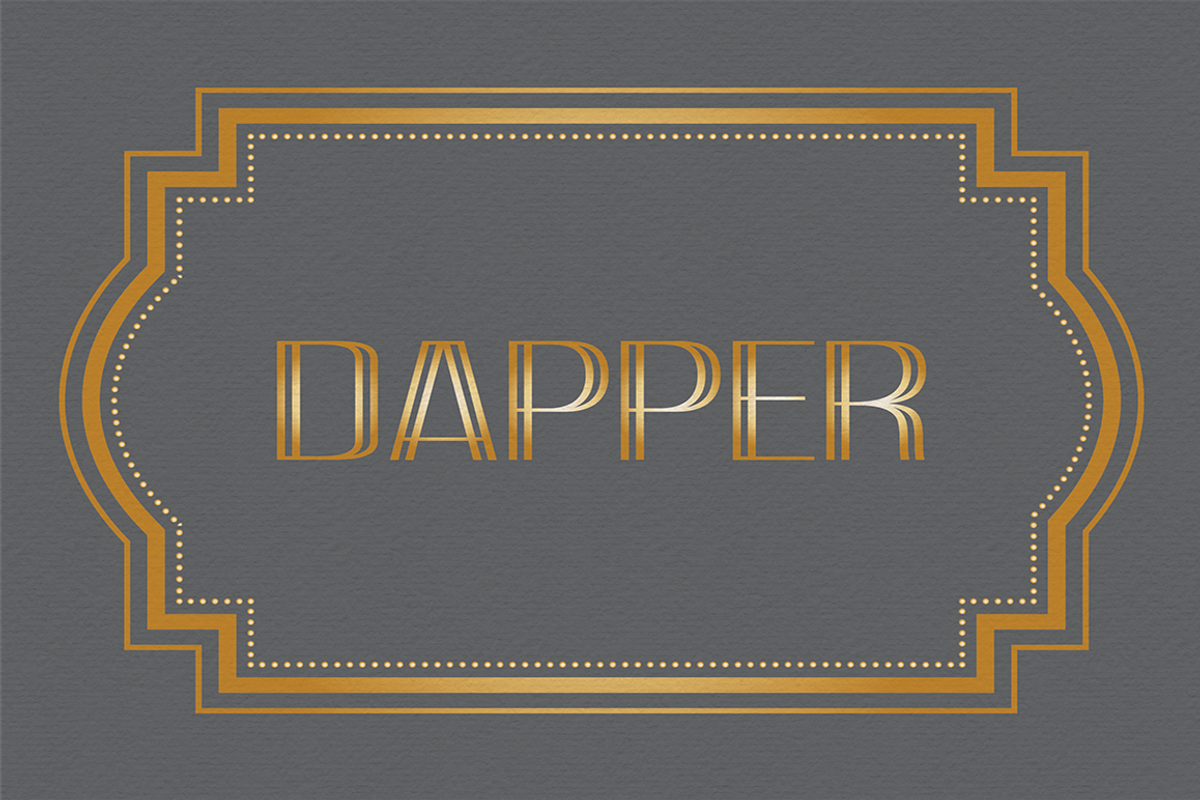
Dapper OTF Font Free Download is a sleek and fashionable typeface designed for creatives who appreciate clean style with a modern edge. With its smooth curves and refined letterforms, Dapper is perfect for fashion branding, lifestyle blogs, logo design, and elegant social media content that needs to feel both trendy and timeless.
Dapper OTF Font Free Download brings a touch of class and minimalism to your typography. Whether you’re crafting a stylish headline, building a chic brand identity, or designing modern print materials, this font delivers versatility and elegance in every letter. Download it now and let Dapper elevate your next design project with effortless sophistication.